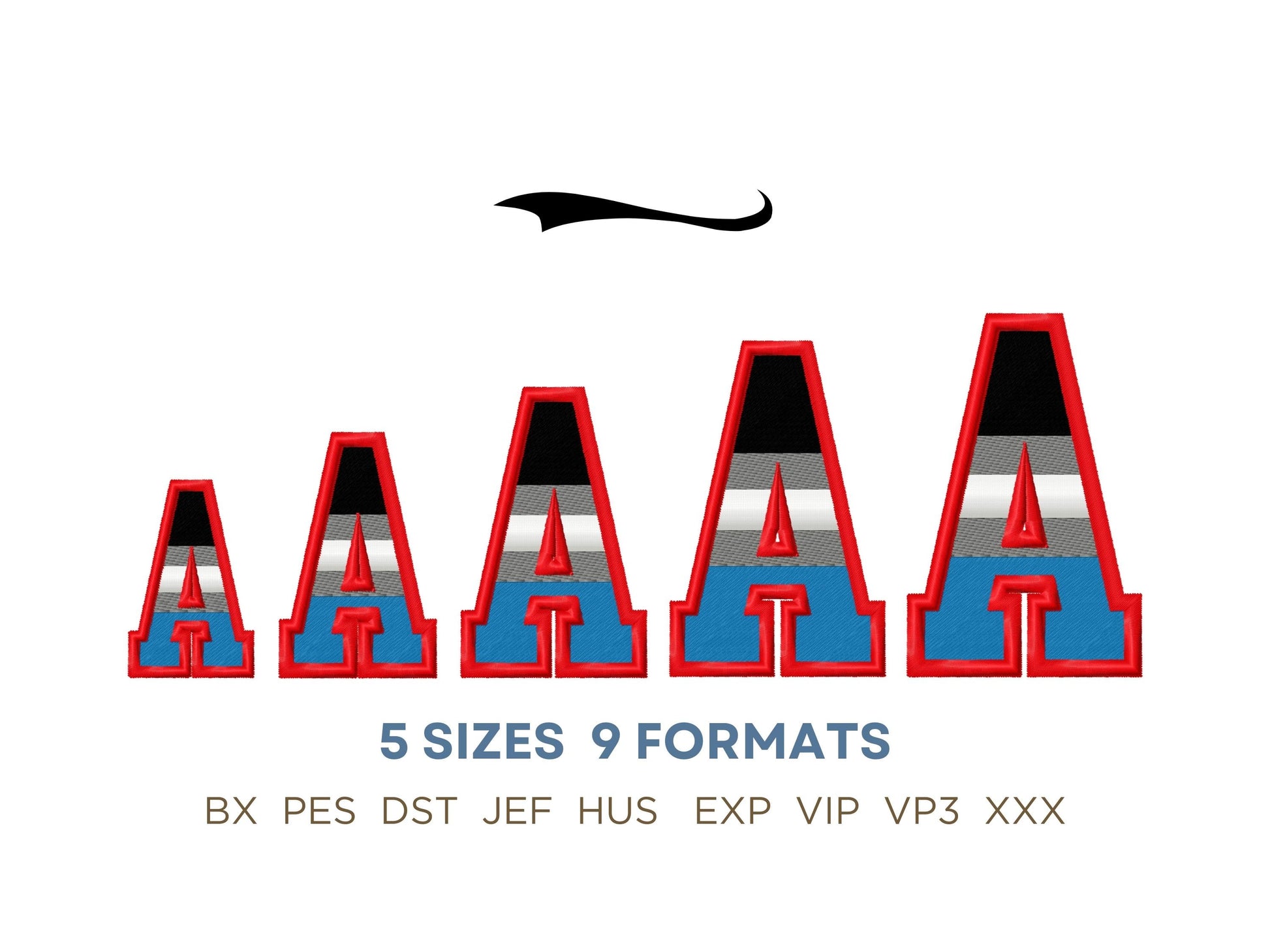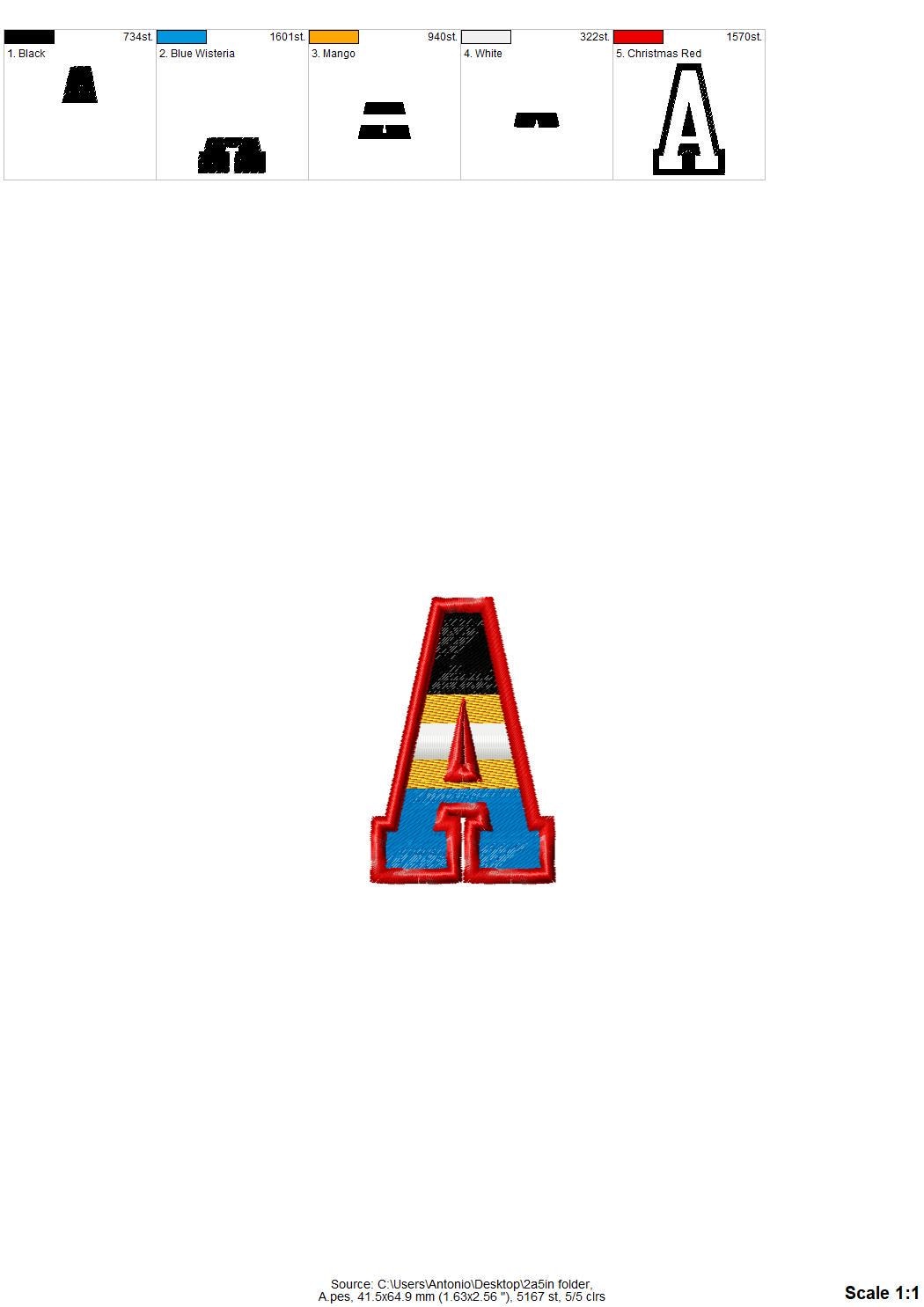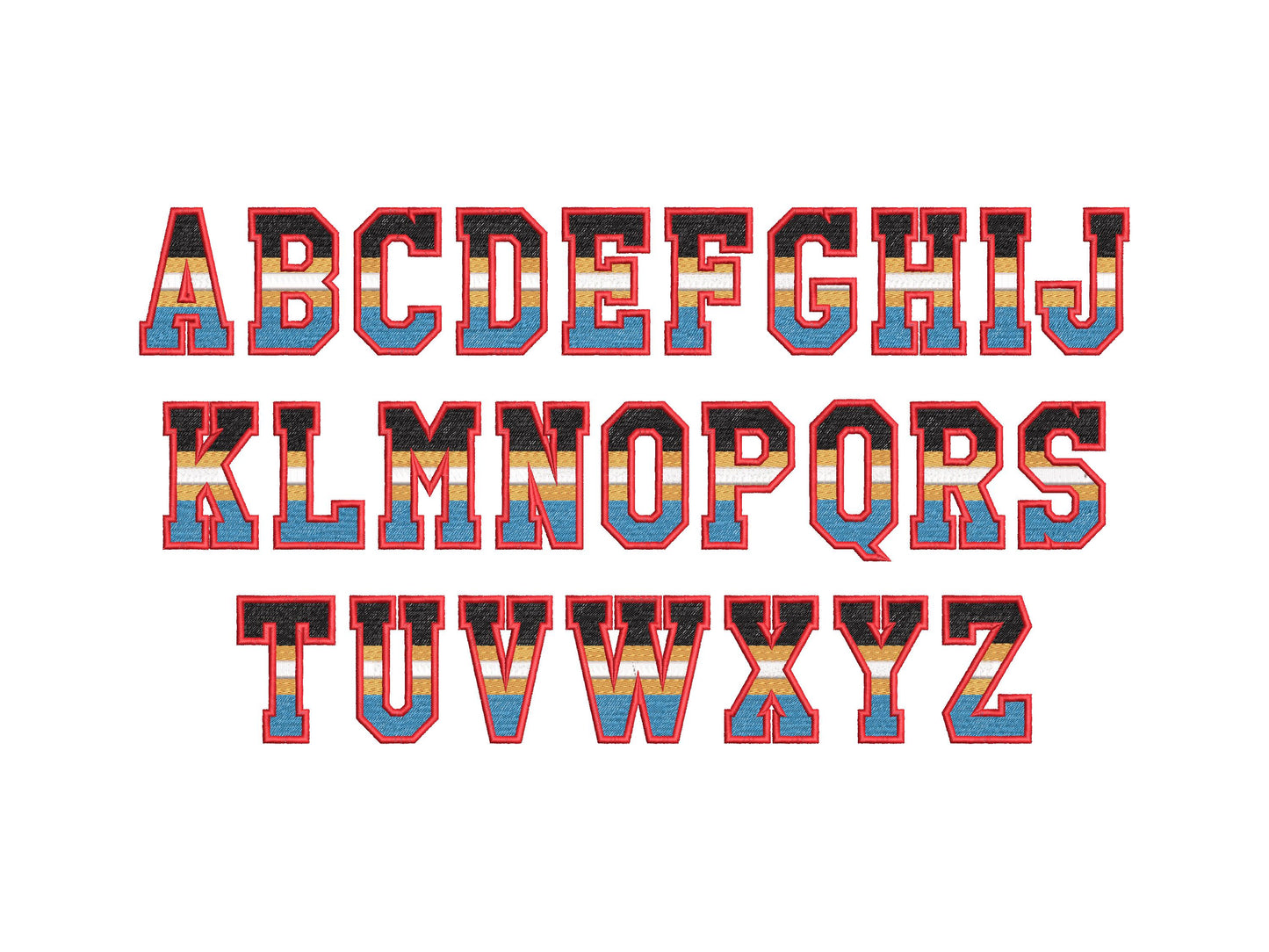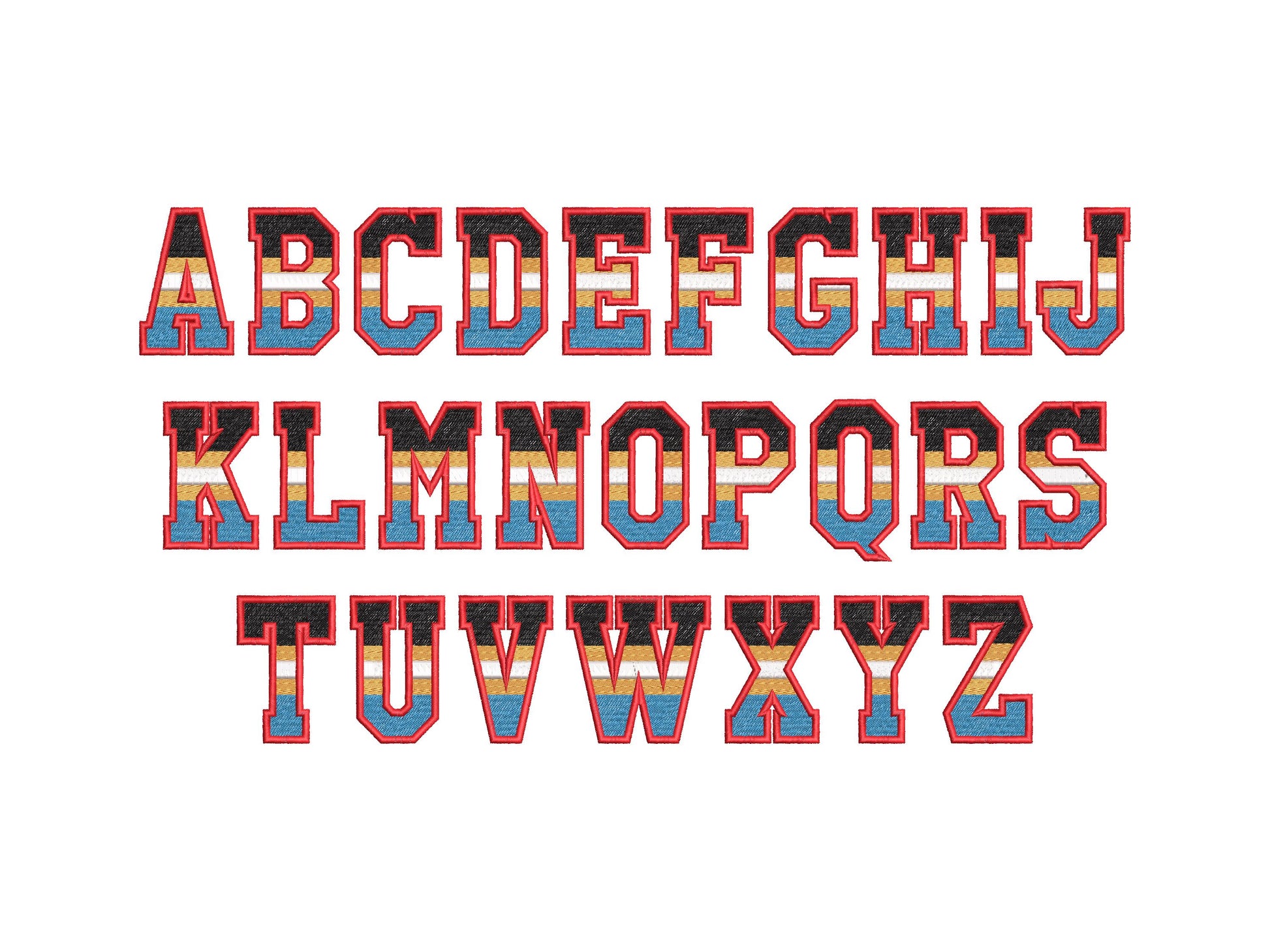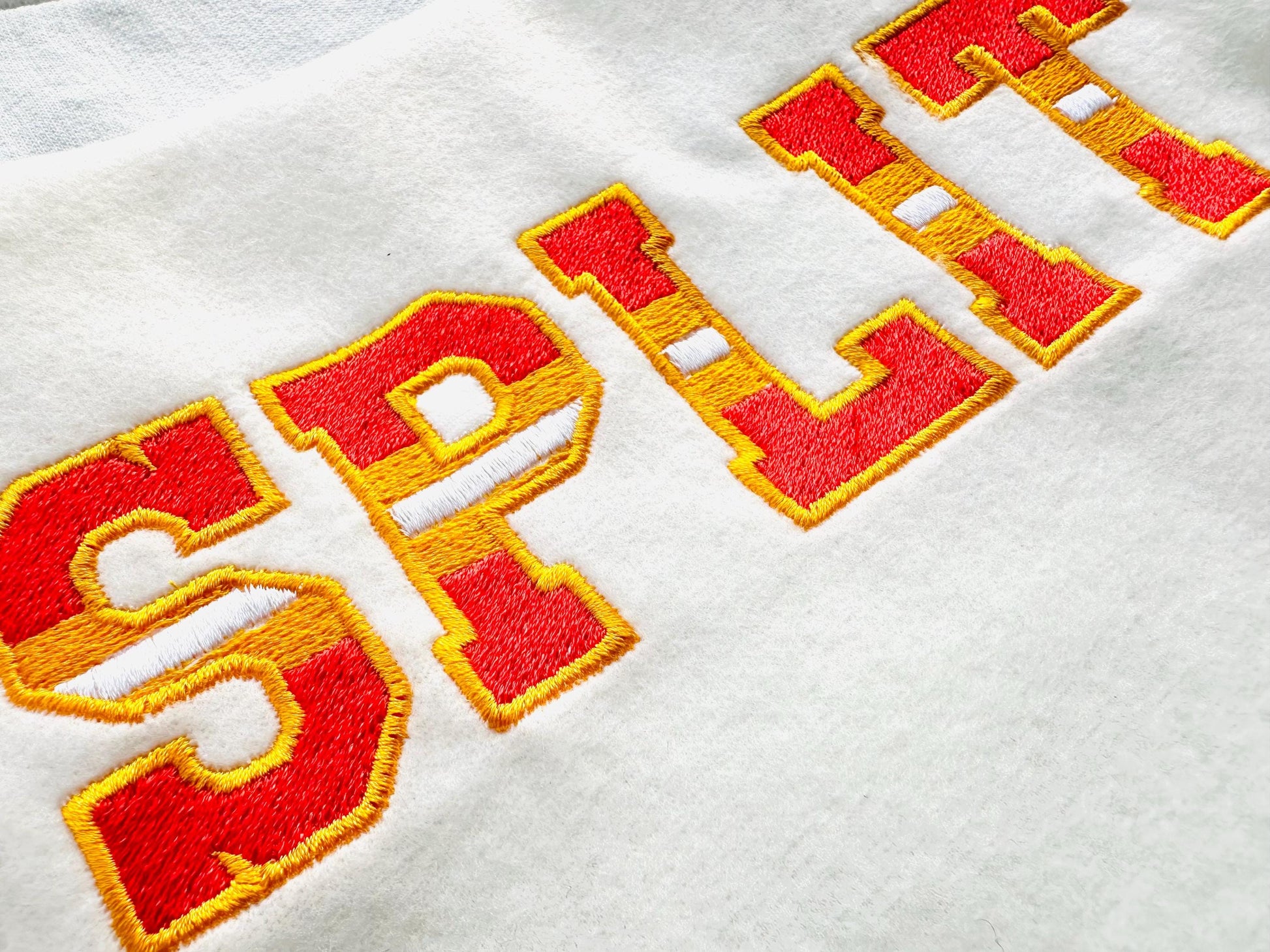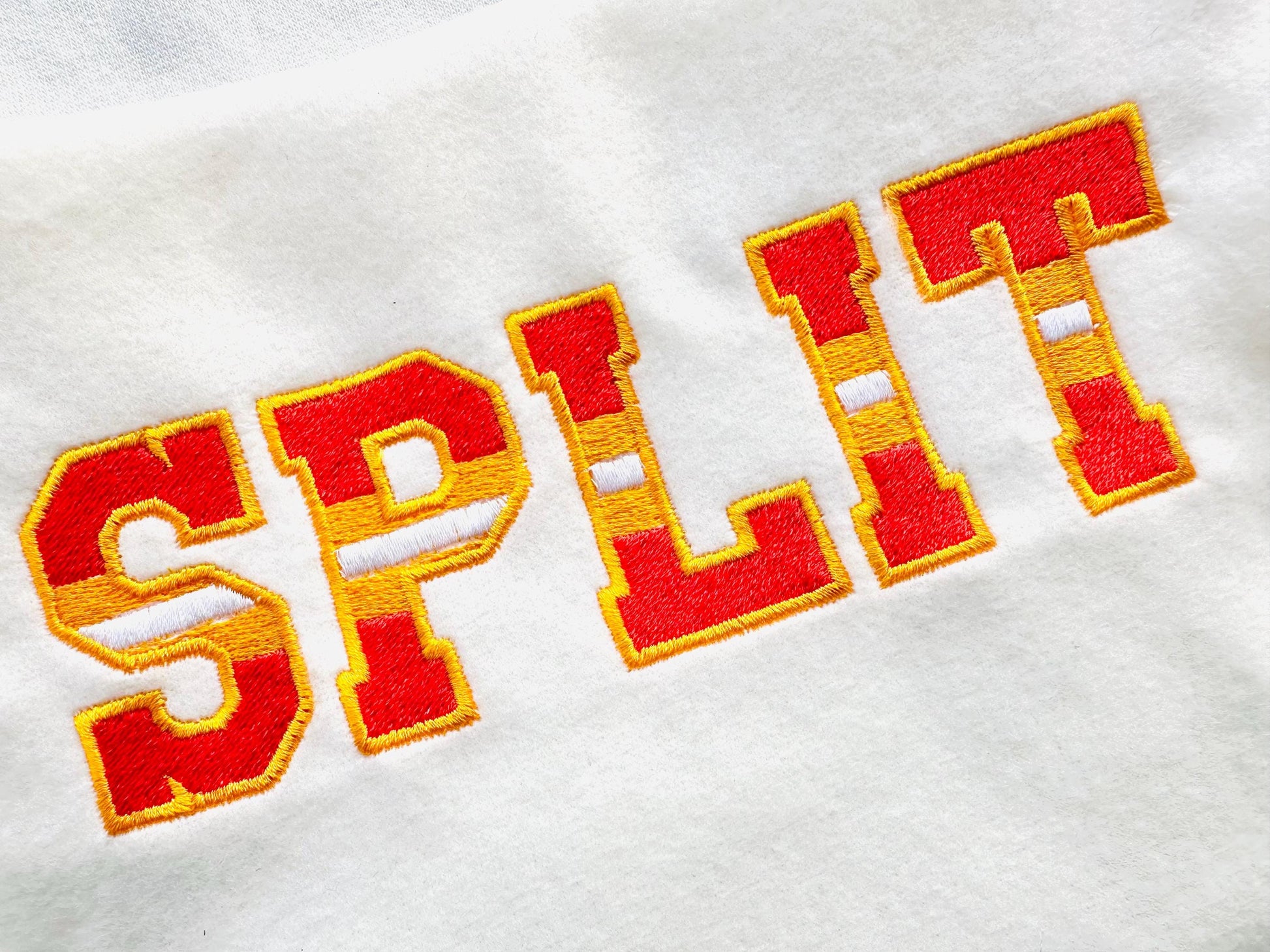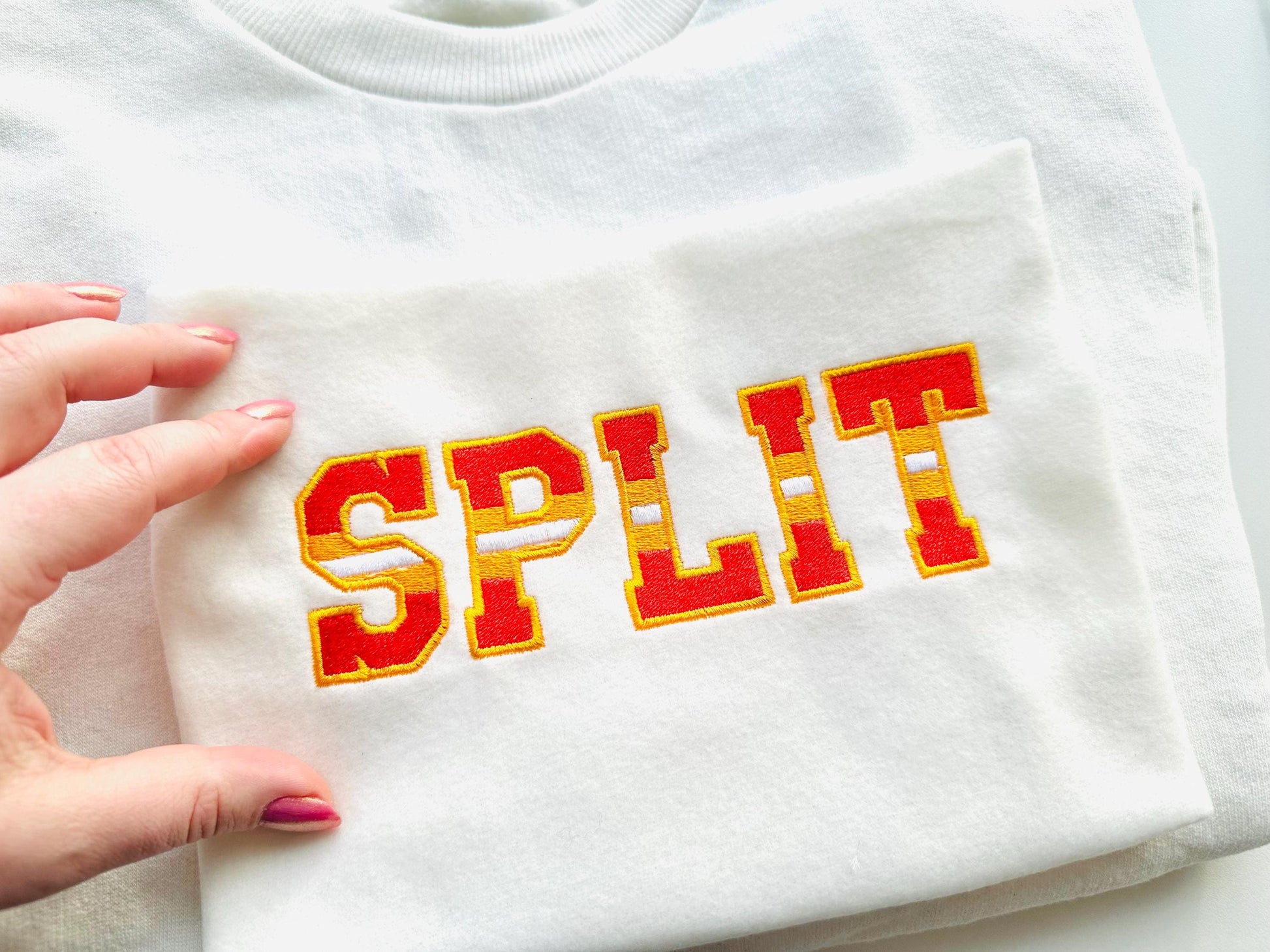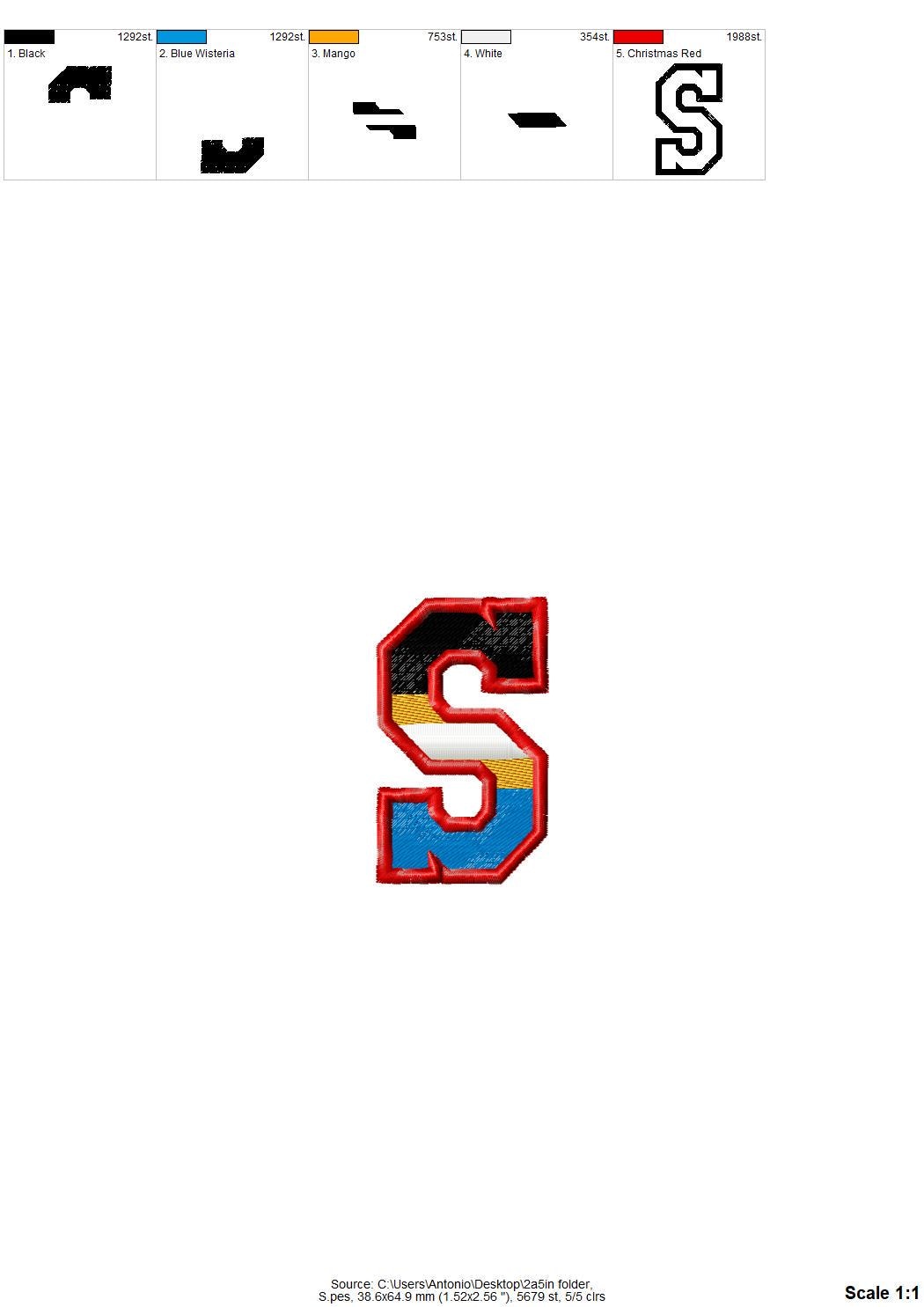
Sports Varsity Collegiate Type Font
All 26 capital letters, A to Z, in five sizes: 1.7, 2, 2.5, 3 and 3.2 inches. Striped fill stitch letters with a clean satin stitch outline.
- Striped varsity collegiate font, satin stitch outline
- Uppercase A to Z
- 5 sizes, 1.7 to 3.2 in